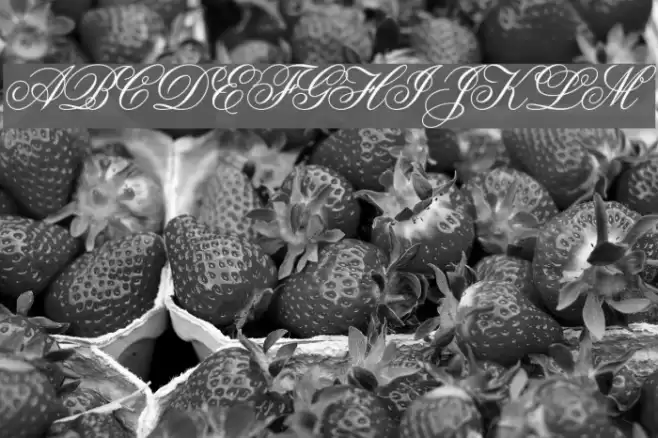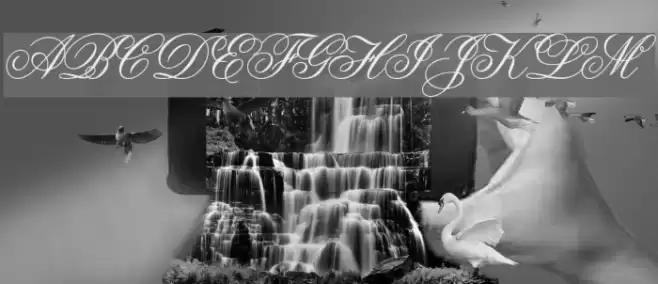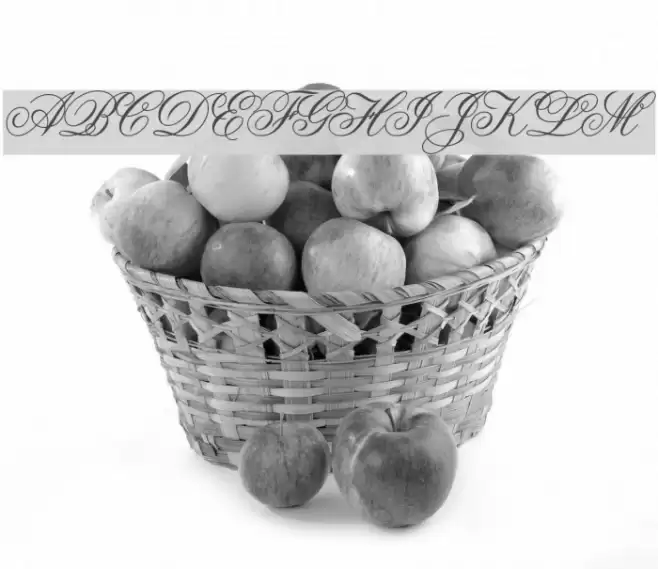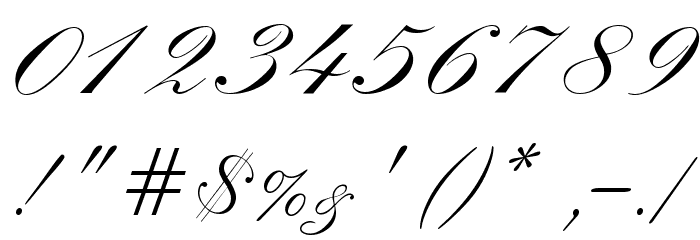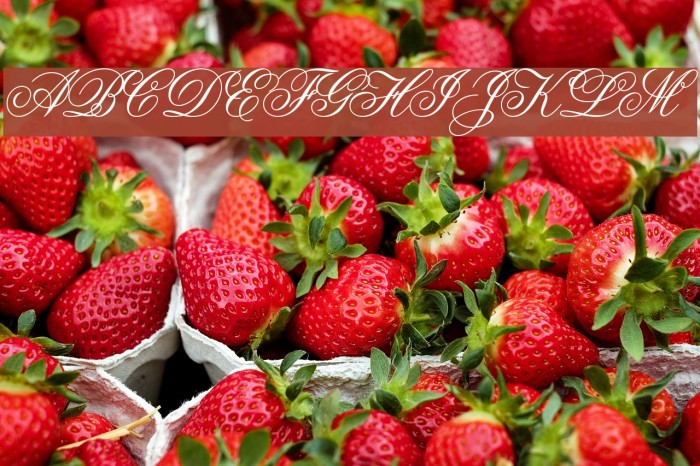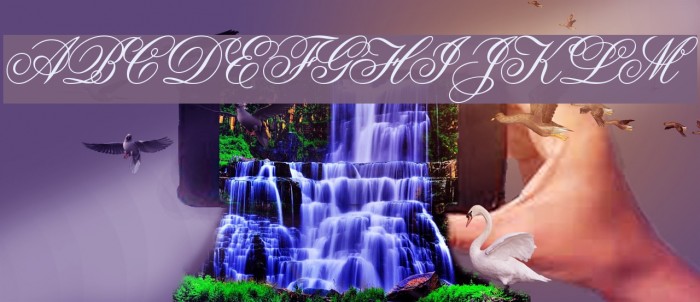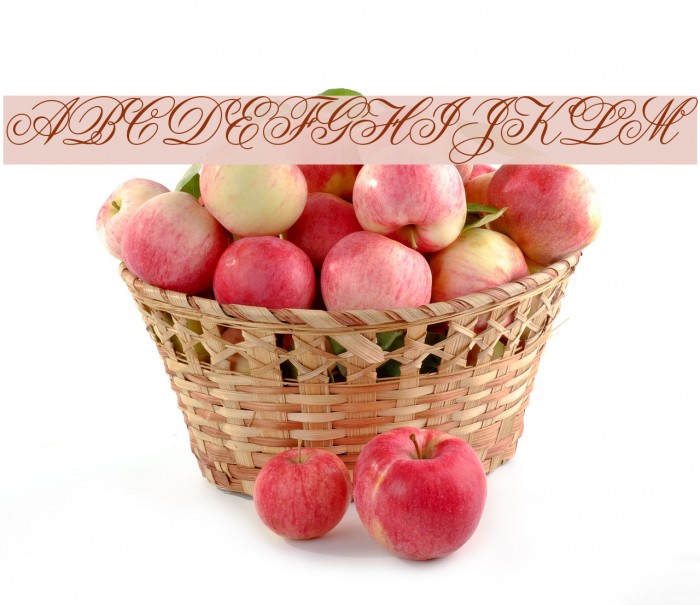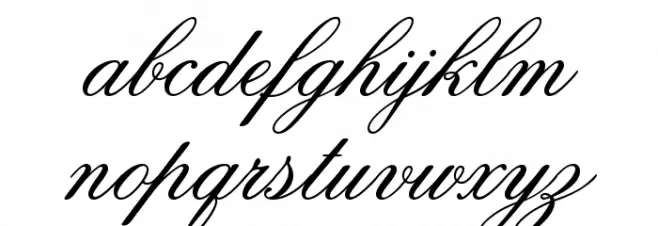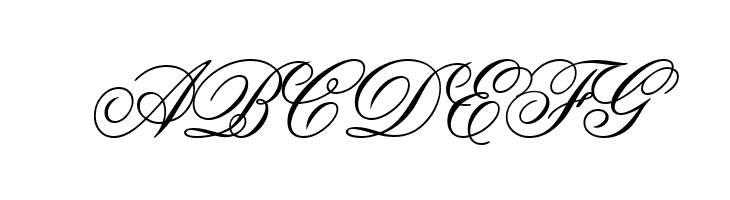
Old Script Font
Old Script Description
This elegant script font features intricate, flowing letterforms that evoke a sense of sophistication and classic beauty. The uppercase letters are adorned with elaborate swashes and flourishes, creating a sense of movement and grace. The lowercase letters maintain a consistent style, with smooth, connected strokes that enhance readability while preserving the decorative nature of the font. The numerals and special characters are designed with the same attention to detail, ensuring a cohesive appearance across all text elements. This font is ideal for projects that require a touch of elegance and refinement, such as wedding invitations, formal event programs, or luxury branding.
An elegant script font with intricate swashes and flowing letterforms from Script fonts.
- Proposed Projects: Wedding invitations, formal event programs, luxury branding, elegant stationery.
- Overall Style: Classic
- Use Case: Logos, Invitations, Decorative text